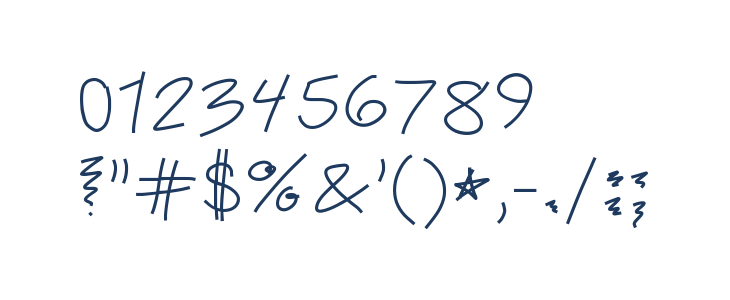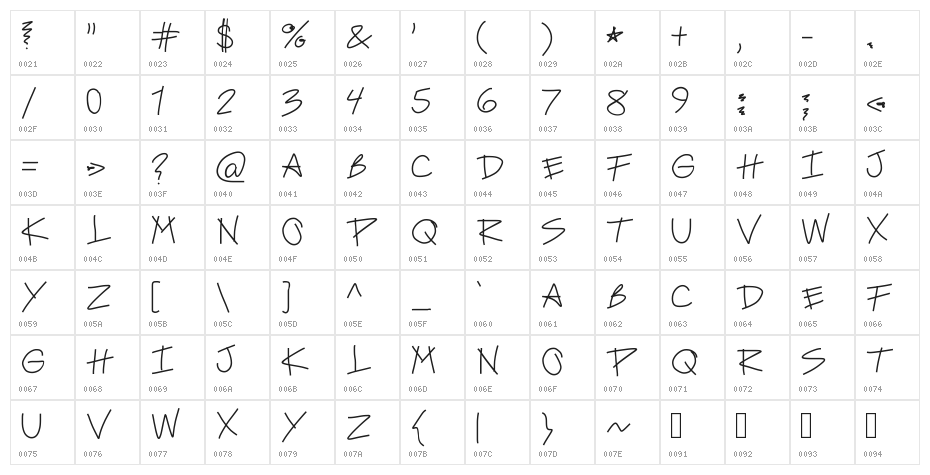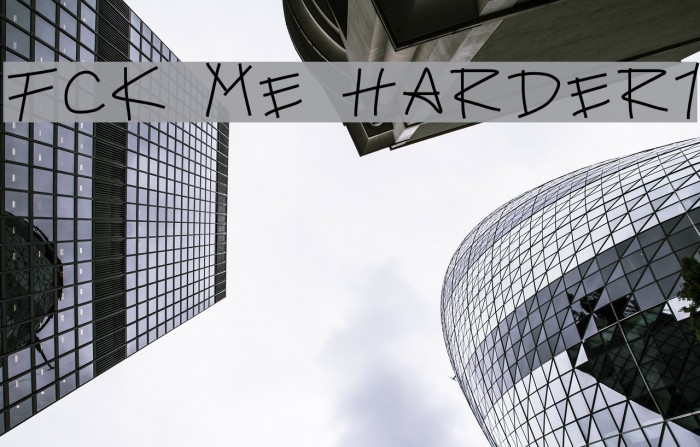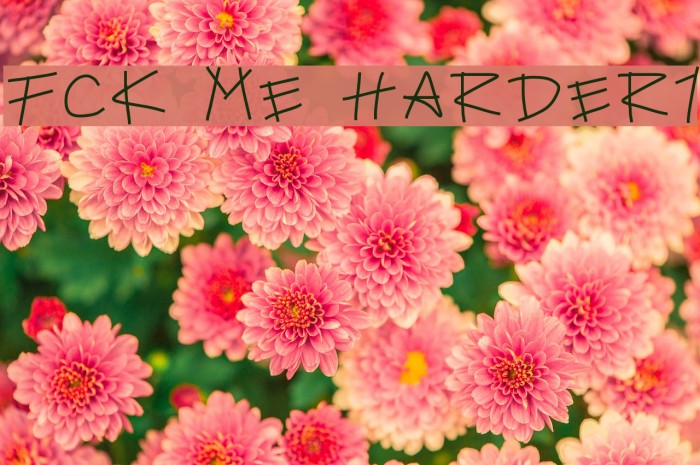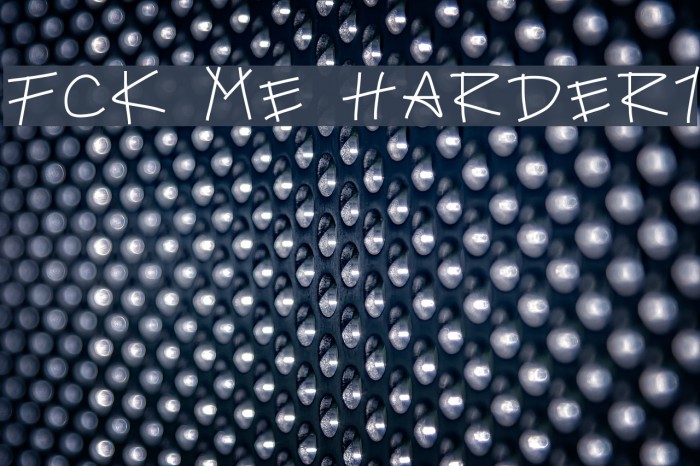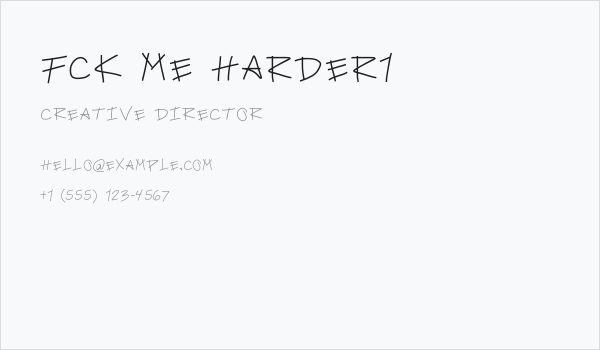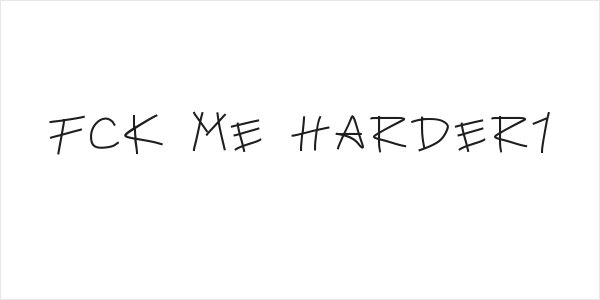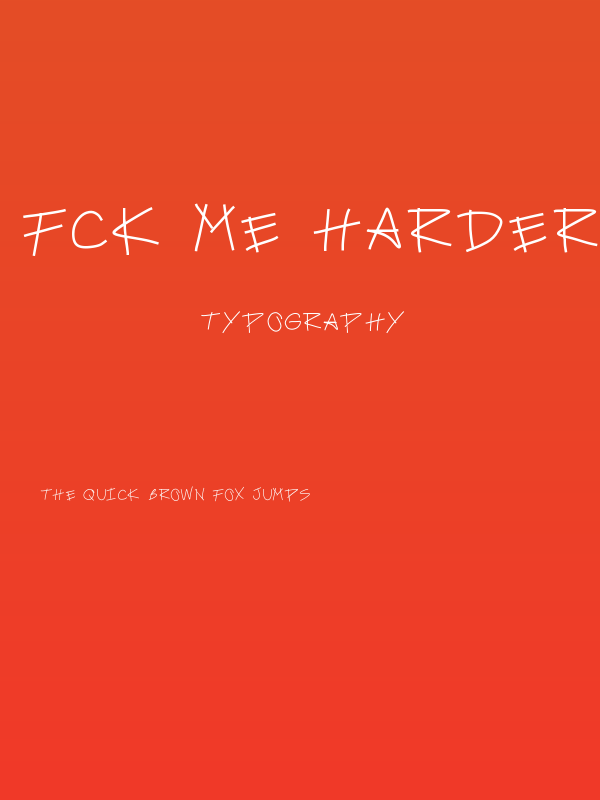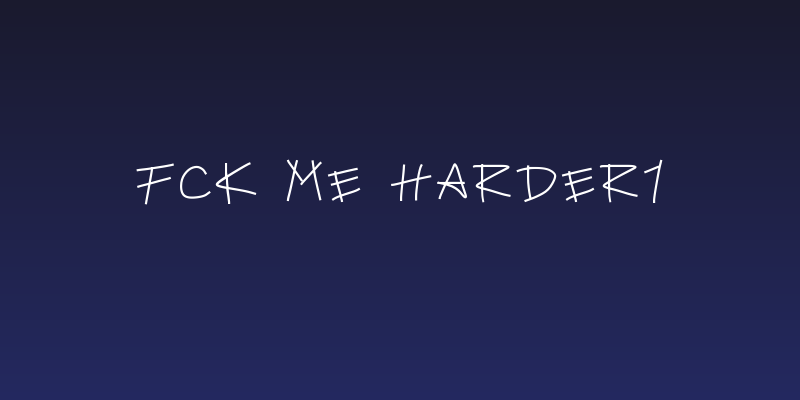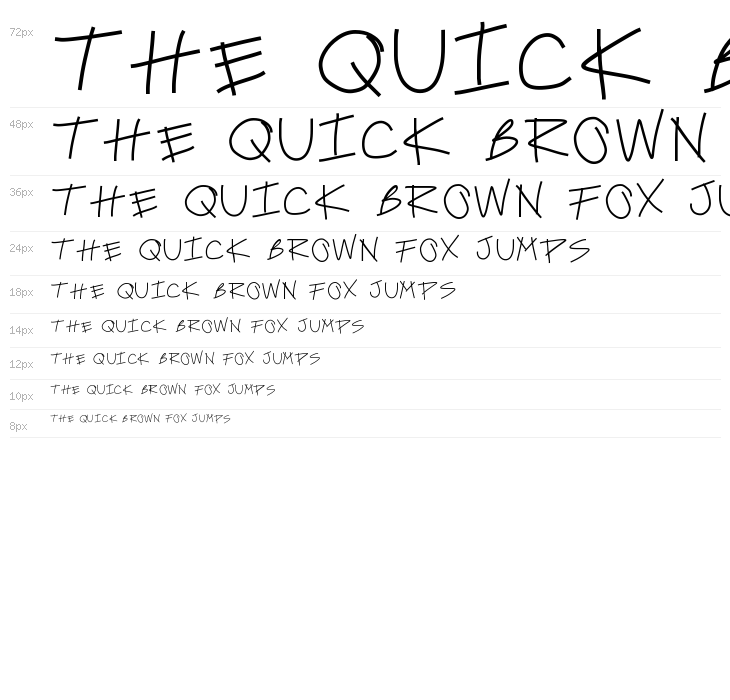
fck me harder1 Font
fck me harder1 Description
This font features a playful, handwritten style with a casual and informal appearance. The letters are slightly slanted, giving it a dynamic and energetic feel. The strokes are uneven, adding to the hand-drawn aesthetic, and the characters have a whimsical quality with varying heights and angles. This font is characterized by its loose and free-flowing design, which makes it ideal for projects that require a personal touch. The numbers and special characters maintain the same lively style, ensuring consistency across all elements.
| Proposed Projects | Ideal for greeting cards, children's books, informal invitations, and creative branding. |